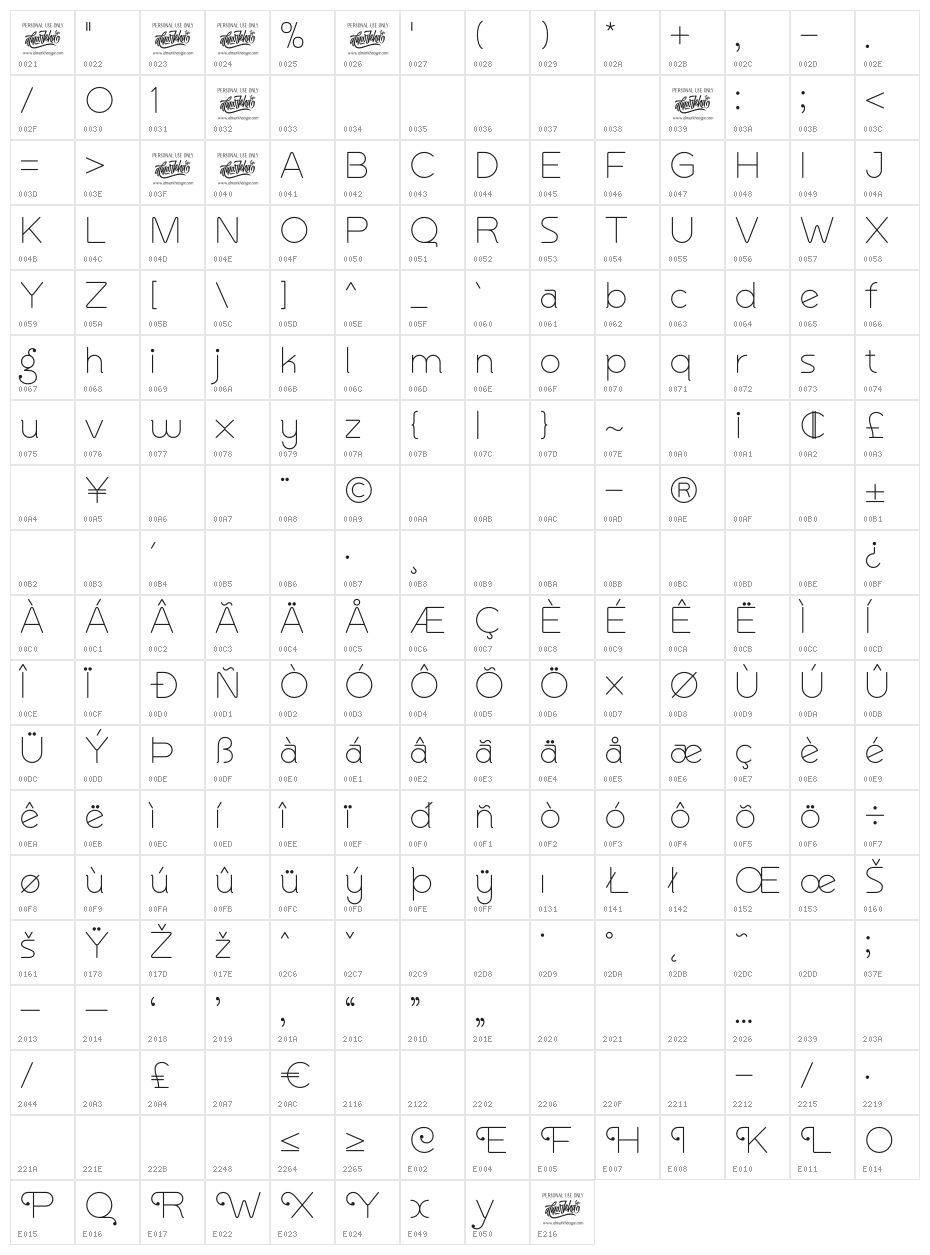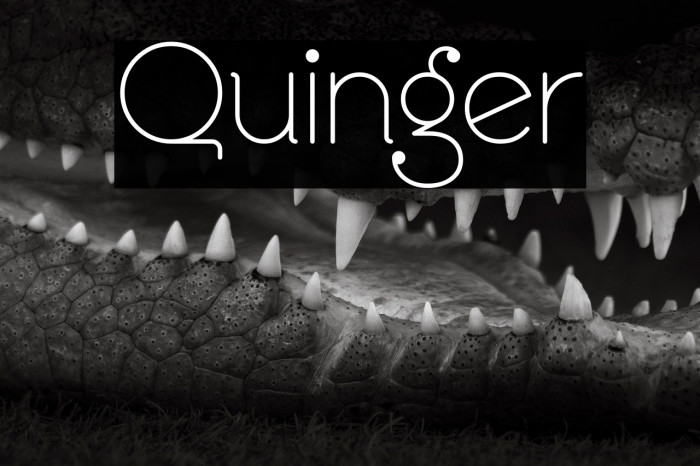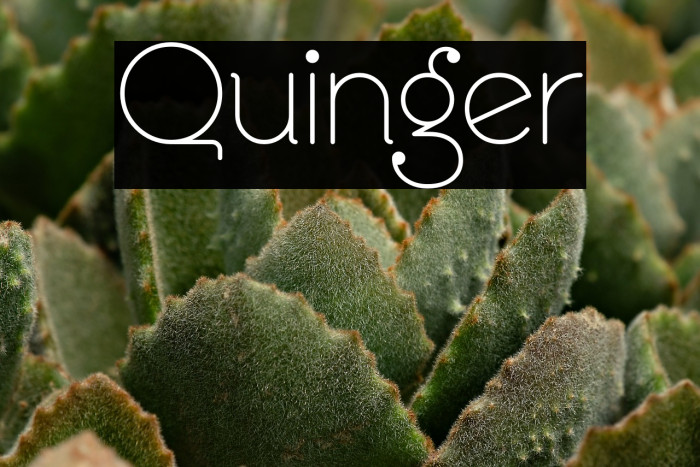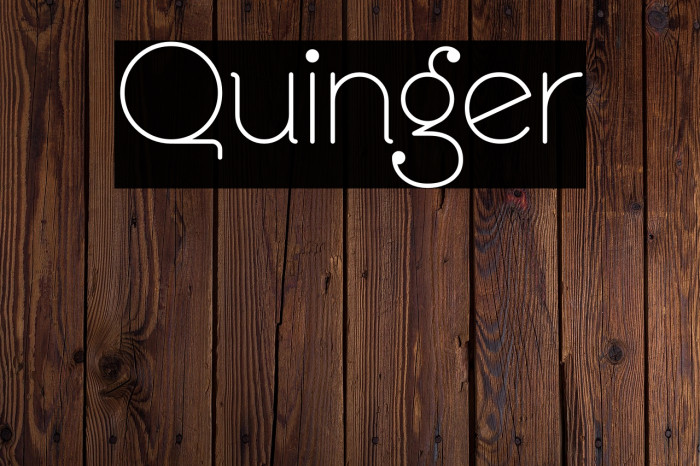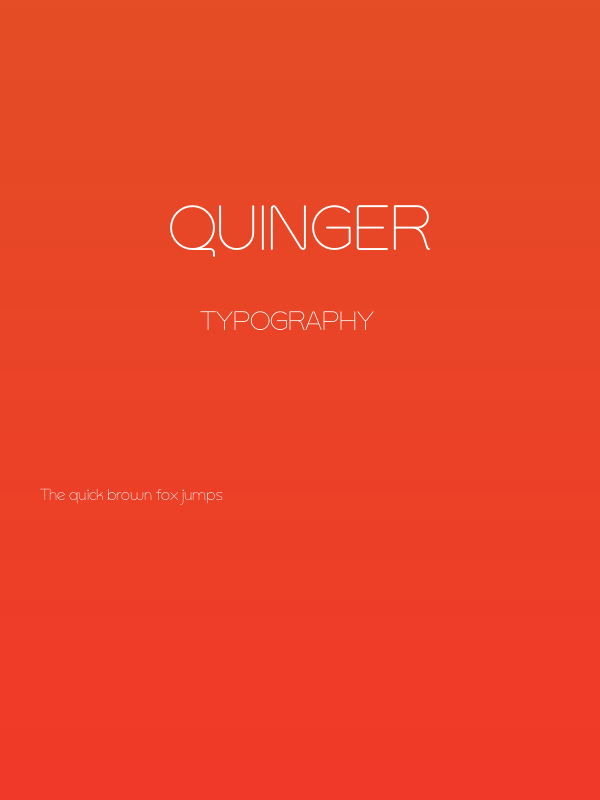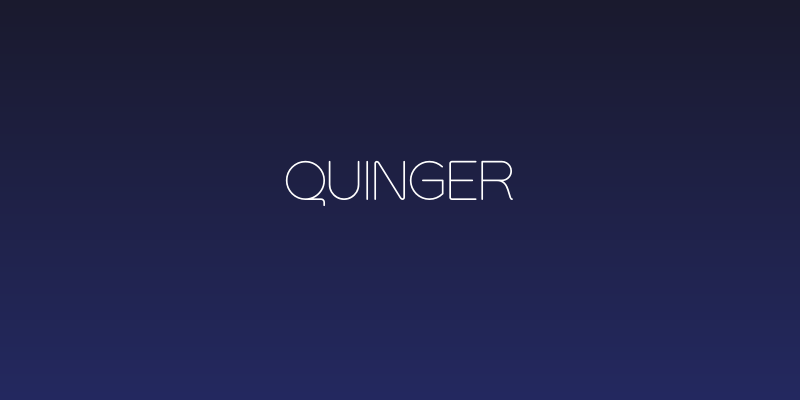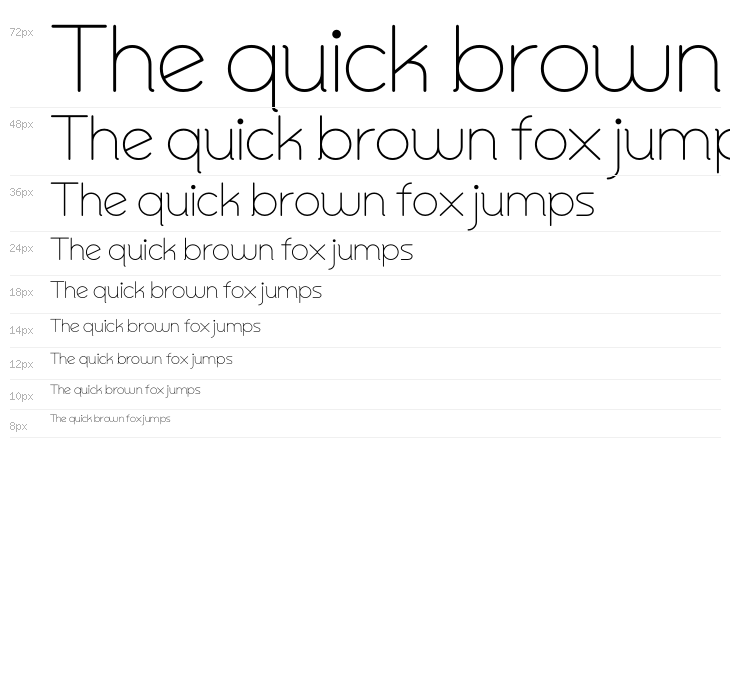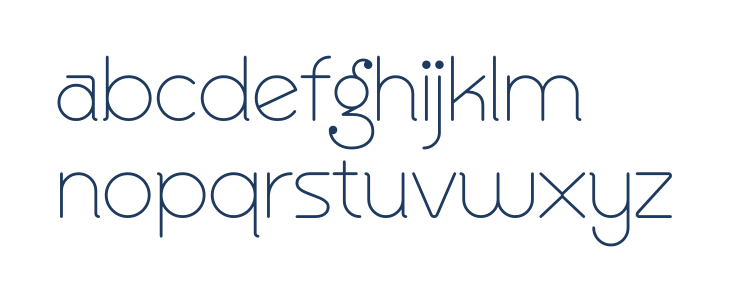
Quinger Font
Quinger Description
This font features a clean and modern design with a geometric structure. The uppercase letters are tall and slender, while the lowercase letters maintain a consistent height with rounded edges. The numerals are simple and align well with the overall style. Special characters are designed with the same minimalist approach, ensuring uniformity across all glyphs. The font's thin strokes and open counters contribute to its airy and elegant appearance, making it suitable for contemporary design projects. It maintains a balance between readability and style, offering a versatile option for various applications.
| Use Case | Headlines, Body text, Logos |
| Proposed Projects | Ideal for branding, editorial design, web design, and minimalist posters. |